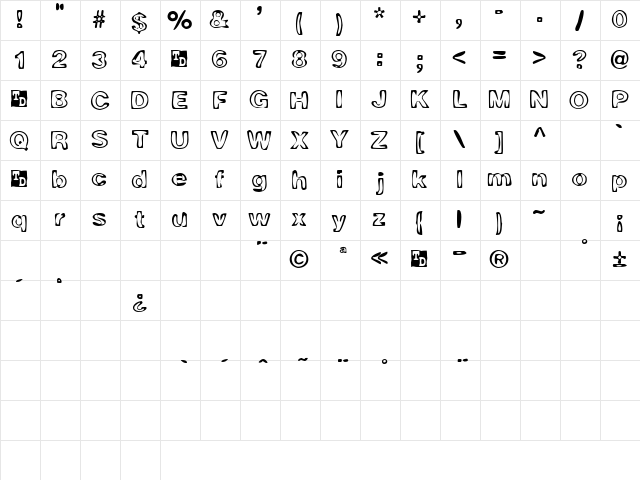
Complete Ring O Fire Trial Version Regular glyph index. Displaying only characters natively supported by Ring O Fire Trial Version Regular font.
Ring O Fire Trial Version is a composed and adaptable typeface that performs quietly and consistently across a wide range of design contexts.